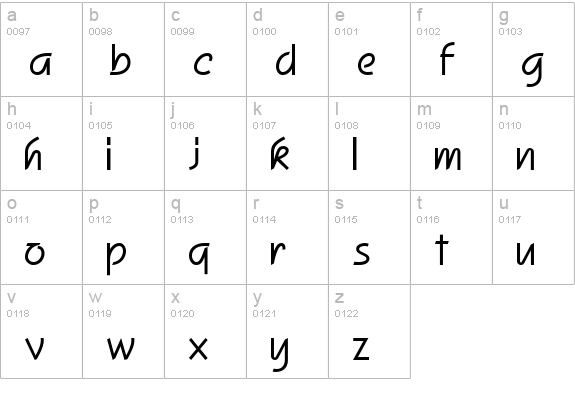
Scribe Bold Font Details
Scribe Bold is a strong, high-contrast variant in the Scribe typeface family \xE2\x80\x94 well suited to headlines, attention-grabbing titles, and strong calls-to-action.
Scribe Bold font is a sophisticated and versatile typeface that exudes elegance and professionalism. With its bold and confident letterforms, this font adds a touch of modernity and refinement to any design project. Whether used for headlines, titles, or body text, Scribe Bold makes a bold statement and commands attention. The clean and crisp lines of Scribe Bold make it highly legible and readable at any size, ensuring that your message is conveyed with clarity and impact. Its well-balanced proportions and sturdy construction give it a strong presence and make it suitable for a wide range of applications, from print materials to digital designs. One of the most appealing aspects of Scribe Bold font is that it is freely available to download at FontsMarket.com. This means that you can easily access and use this exceptional typeface without any hassle or cost. Whether you are a professional designer or a casual user, having access to high-quality fonts like Scribe Bold can greatly enhance your creative projects. The versatility of Scribe Bold allows it to seamlessly fit into various design styles and aesthetics. Its timeless appeal and modern edge make it suitable for branding, advertising, packaging, editorial design, and much more. With its bold and impactful presence, Scribe Bold font will surely make your designs stand out from the crowd. In addition to its aesthetic qualities, Scribe Bold font also offers excellent technical performance. It is available in multiple formats, ensuring compatibility with various design software and platforms. This font is also optimized for web use, ensuring that your online projects look just as stunning as your printed materials. Overall, Scribe Bold font is a true gem in the world of typography. Its bold and commanding presence, coupled with its versatility and technical excellence, make it a must-have for any designer or creative enthusiast. The fact that it is freely available to download at FontsMarket.com only adds to its appeal and accessibility. So why wait? Go ahead and unleash your creativity with Scribe Bold font today.